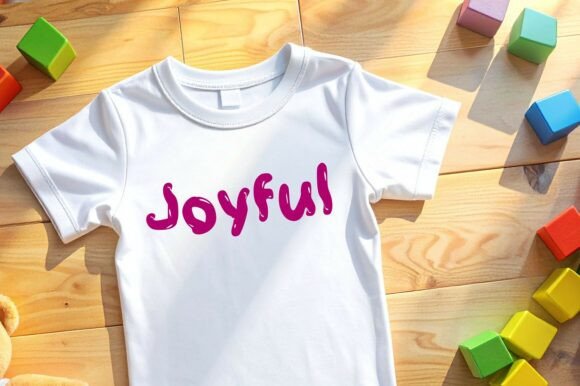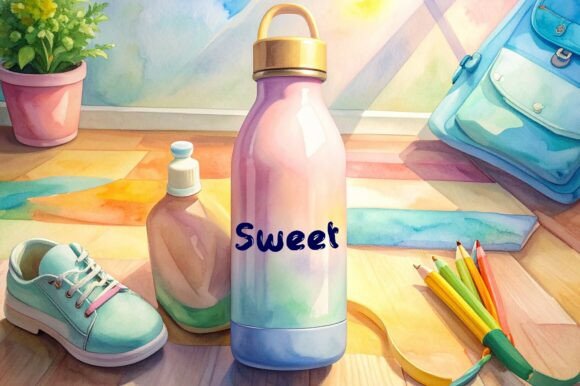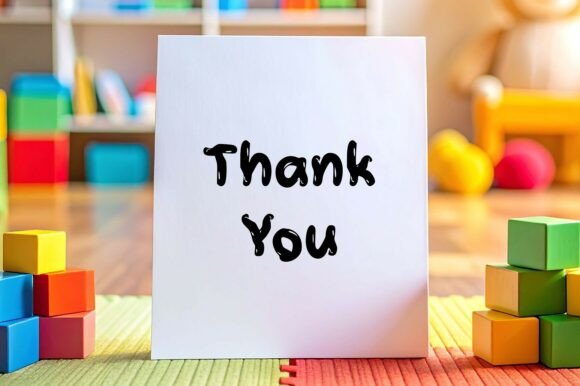
Unlock the Whimsy of Cassel Font
Imagine walking into a charming café, greeted by a hand-painted sign that radiates warmth and hospitality. The playful script and vibrant colors instantly put a smile on your face, making you feel welcome and at ease. This is the magic of Cassel Font, a display font that embodies the essence of handmade artistry and whimsical cheer.
Perfect for designers looking to add a touch of personality to their projects, Cassel Font is a versatile and adaptable tool that can elevate anything from children’s brands to casual dining labels. Its easy compatibility with most design software makes it a valuable asset for storytellers, educators, and small business owners who want to infuse their work with an irresistible charm.
Cassel Font Key Features
- Unique Characteristics: Cassel Font features a unique blend of geometric and organic elements, creating a distinctive and eye-catching visual style.
- Kerning and Glyphs: Cassel Font includes carefully crafted kerning and a wide range of glyphs, ensuring accurate and consistent typography in various design contexts.
Cassel Font Review
I recently had the chance to work with the Cassel Font, and I must say, it’s a mixed bag. Here’s my honest take on what I liked and what didn’t quite hit the mark.
- Unique Personality: Cassel Font has a distinct, quirky vibe that can add a lot of character to your designs.
- High Legibility: Despite its playful feel, Cassel Font is surprisingly easy to read, even at smaller font sizes.
- Great for Titles: The font’s bold, eye-catching qualities make it perfect for headlines and titles.
- Limited Versatility: Cassel Font is quite specialized, and its quirks might not translate well to body text or more formal designs.
- Can Be Overwhelming: The font’s boldness can be overwhelming if used excessively, so be sure to balance it with more subdued elements.
- Not Ideal for Small Text: While Cassel Font is legible, its unique shape can make it harder to read in smaller sizes, so use it sparingly in these contexts.
Overall, I think Cassel Font is a great choice for designers who want to add some personality to their work. Just be aware of its limitations and use it thoughtfully to avoid overwhelming your audience.
To get the most out of Cassel Font, use it for titles, headings, and emphasis. It’s ideal for creative projects, such as posters, flyers, and social media graphics. You can also use it for branding and marketing materials, like logos and business cards.
Cassel Font includes a comprehensive character set, including Latin, Cyrillic, and Greek alphabets, as well as a range of punctuation and symbol characters. It also supports a wide range of languages, including English, Spanish, French, German, Italian, Portuguese, Dutch, Russian, and many more.